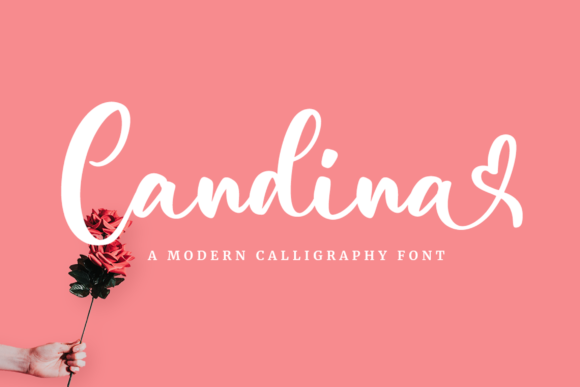
Candina Font: The Ultimate Guide to Elevate Your Design with Elegance
Candina Font is a romantic and sweet calligraphy typeface that exudes luxury and sophistication. Its unique characters dance along the baseline, adding a touch of elegance to any design project. In this comprehensive guide, we’ll explore the world of Candina Font, its features, and how you can leverage its beauty to create stunning designs that leave a lasting impression.
Introducing Candina Font: A Calligraphy Typeface like No Other
Candina Font is a carefully crafted calligraphy typeface designed to bring a sense of luxury and refinement to your designs. Its flowing lines, delicate curves, and intricate details make it the perfect choice for designers and crafters looking to add a touch of sophistication to their work.
One of the standout features of Candina Font is its ability to dance along the baseline. This unique characteristic gives your text a sense of movement and fluidity, making it perfect for designs that require a touch of whimsy and elegance.
Features of Candina Font
- Romantic and Sweet: Candina Font is a calligraphy typeface that exudes romance and sweetness. Its delicate lines and curves make it perfect for designs that require a touch of elegance.
- Luxury Spark: Candina Font is designed to add a luxury spark to any design project. Its unique characters and flowing lines make it perfect for high-end designs that require a touch of sophistication.
- Dances along the Baseline: Candina Font’s unique characteristic is its ability to dance along the baseline. This feature gives your text a sense of movement and fluidity, making it perfect for designs that require a touch of whimsy and elegance.
- Highly Versatile: Candina Font is highly versatile and can be used for a wide range of design projects, from wedding invitations to branding and packaging.
How to Use Candina Font in Your Design Projects
Candina Font is incredibly easy to use and can be incorporated into your design projects in a variety of ways. Here are a few ideas to get you started:
- Wedding Invitations: Candina Font is perfect for wedding invitations, adding a touch of romance and elegance to your designs.
- Branding and Packaging: Candina Font can be used to create stunning branding and packaging designs that exude luxury and sophistication.
- Stationery: Candina Font is perfect for creating beautiful stationery, including letterheads, business cards, and more.
- Digital Designs: Candina Font can be used in digital designs, including social media graphics, blog posts, and more.
Tips and Tricks for Getting the Most out of Candina Font
Here are a few tips and tricks to help you get the most out of Candina Font:
- Pair with Bold Fonts: Pair Candina Font with bold fonts to create a striking contrast that adds visual interest to your designs.
- Use in Combination with Images: Use Candina Font in combination with images to create stunning designs that tell a story.
Candina Font is a romantic and sweet calligraphy typeface that can elevate your design projects to new heights. Its unique characteristics, versatility, and elegance make it the perfect choice for designers and crafters looking to add a touch of luxury and sophistication to their work. With its wide range of applications and ease of use, Candina Font is sure to become a staple in your design toolkit.